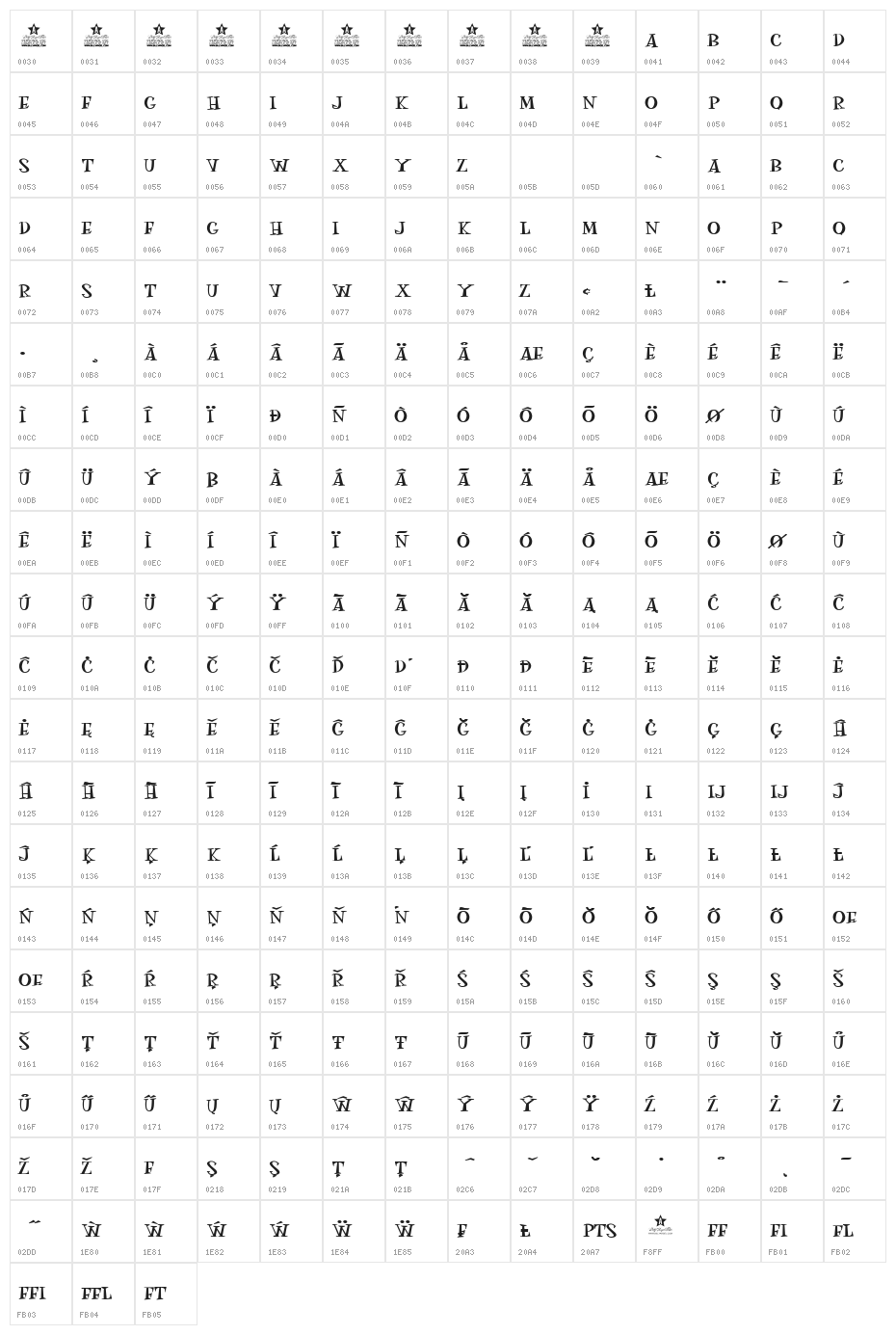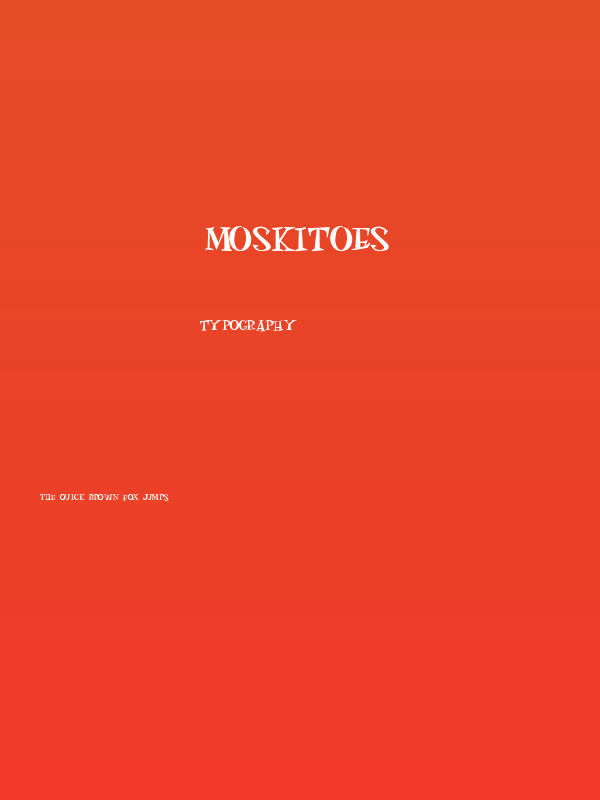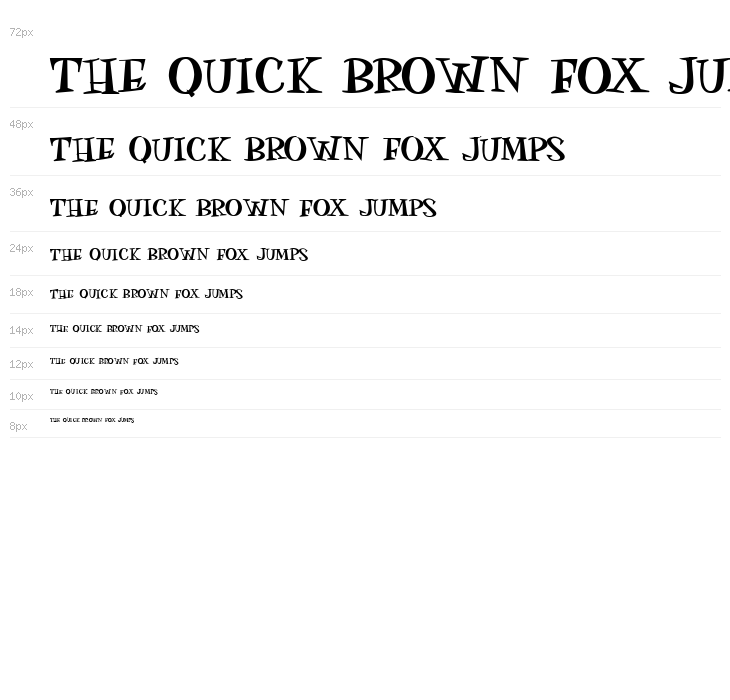
MOSKITOES Font
MOSKITOES Description
This font features a playful and dynamic design, characterized by its uneven, slightly distorted letterforms that give it a whimsical and energetic appearance. The strokes are bold and the characters have a hand-drawn quality, with varying thickness that adds to the lively feel. The uppercase letters are particularly striking, with exaggerated serifs and a slight slant that suggests movement. This font is ideal for projects that require a fun and informal touch, such as children's books, party invitations, or playful branding. Its unique style makes it stand out, ensuring that any text set in this font will capture attention.
Overall StylePlayful, Energetic, Whimsical
Proposed ProjectsChildren's books, party invitations, playful branding, posters, and creative advertising.